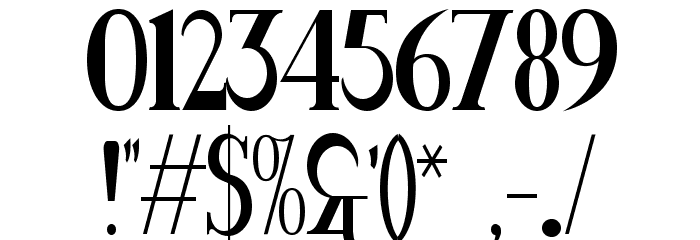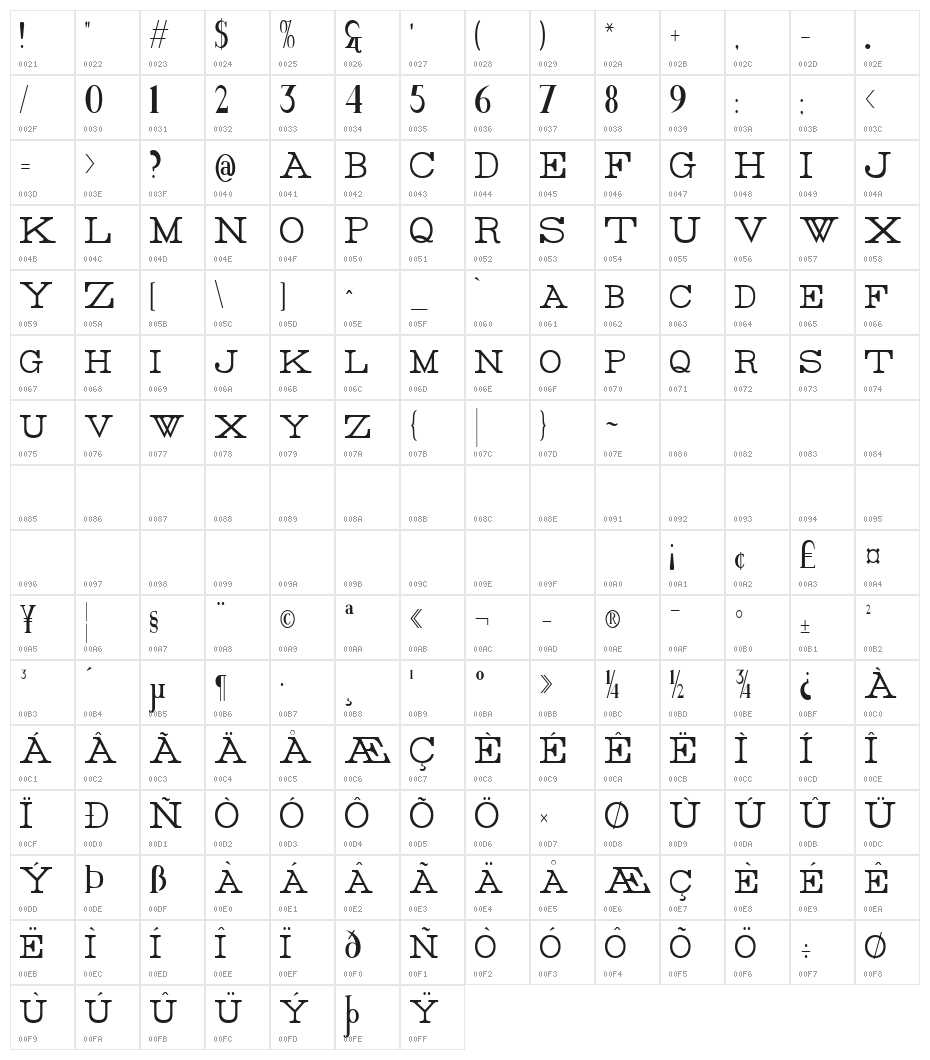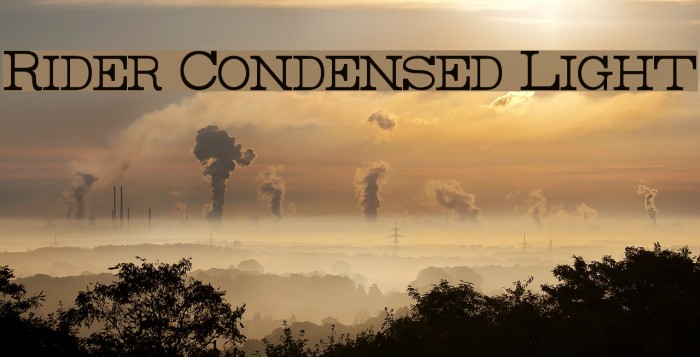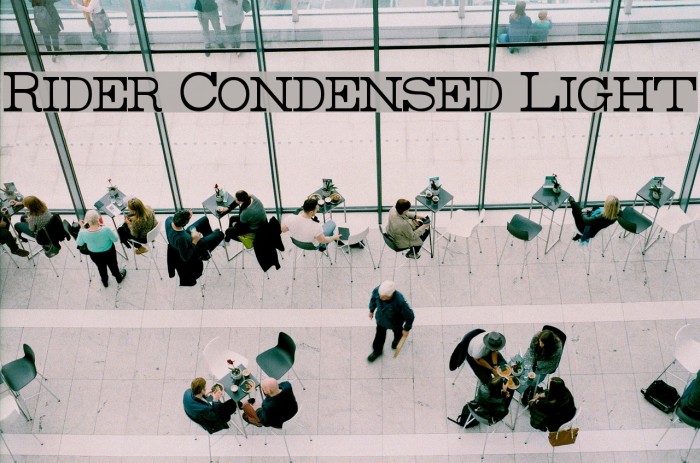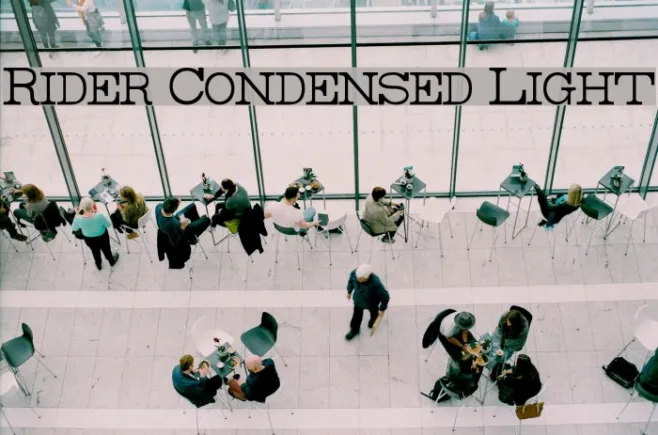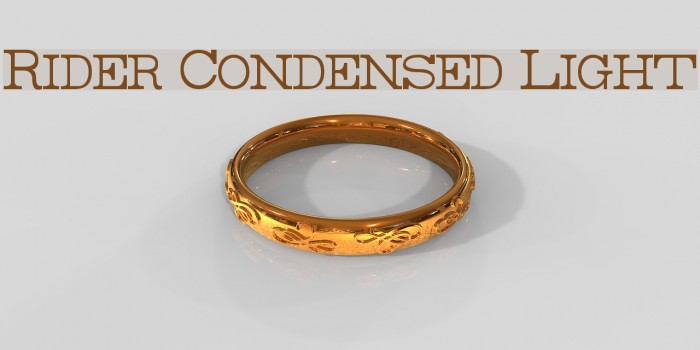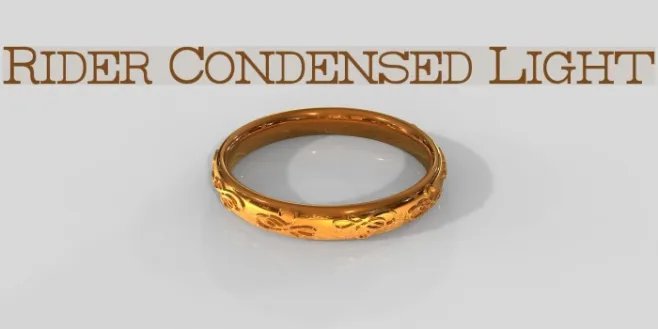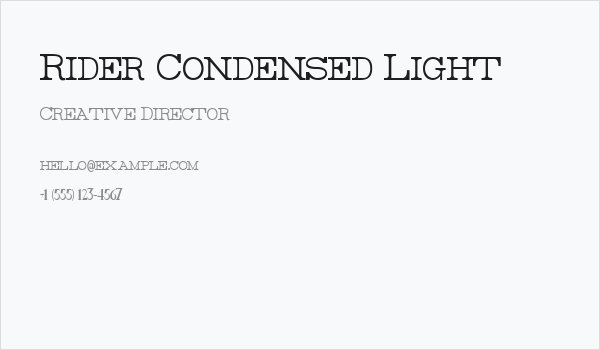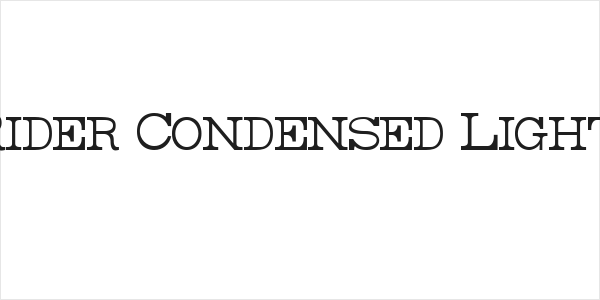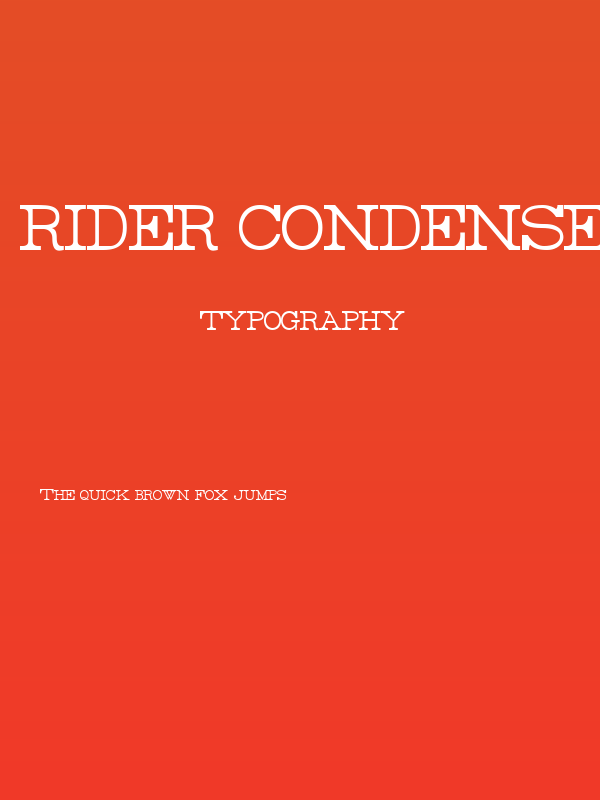
Rider Condensed Light Font
Rider Condensed Light Description
This font features a classic serif style with a condensed form, offering a sophisticated and elegant appearance. The characters are designed with a light weight, providing a refined and airy feel. The serifs are pronounced, adding a touch of traditional elegance, while the overall structure maintains a modern sensibility. The uppercase letters are tall and narrow, enhancing the condensed look, while the lowercase letters complement this with a consistent style. The numerals are distinct and clear, making them suitable for various applications. Special characters are well-defined, maintaining the font's overall aesthetic.
| Use Case | Headlines, Logos, Editorial design |
| Proposed Projects | Ideal for editorial design, luxury branding, formal invitations, and elegant signage. |